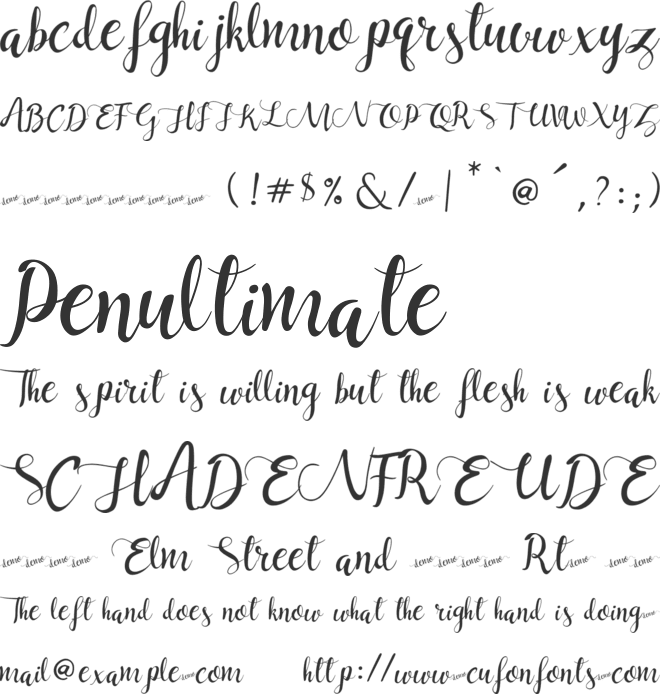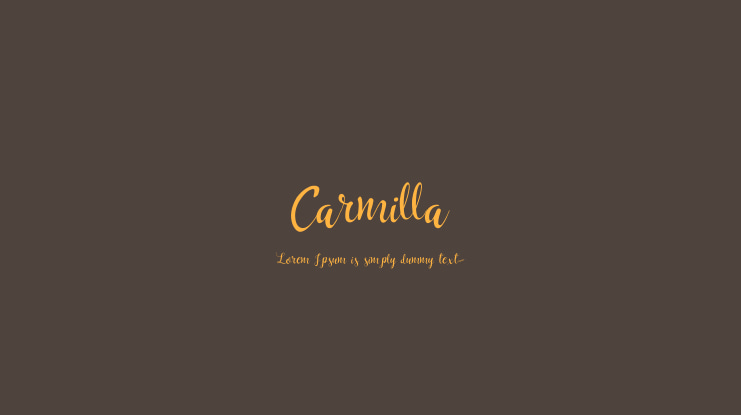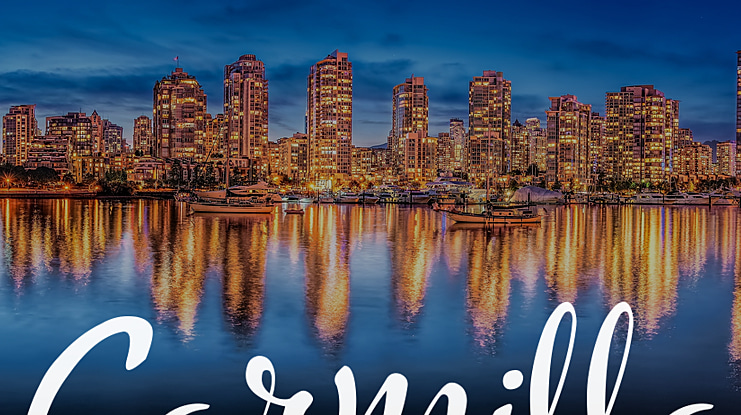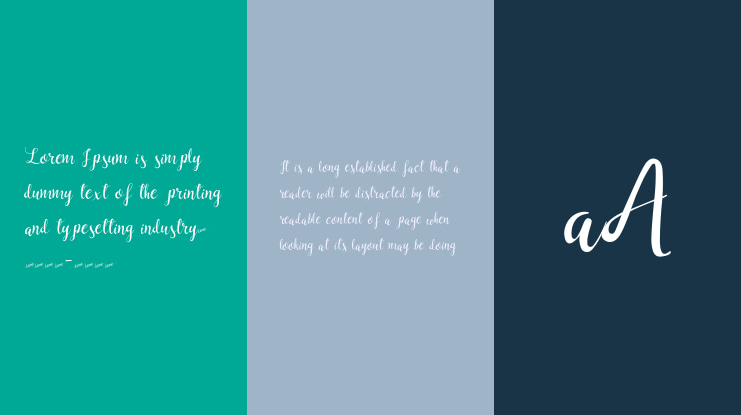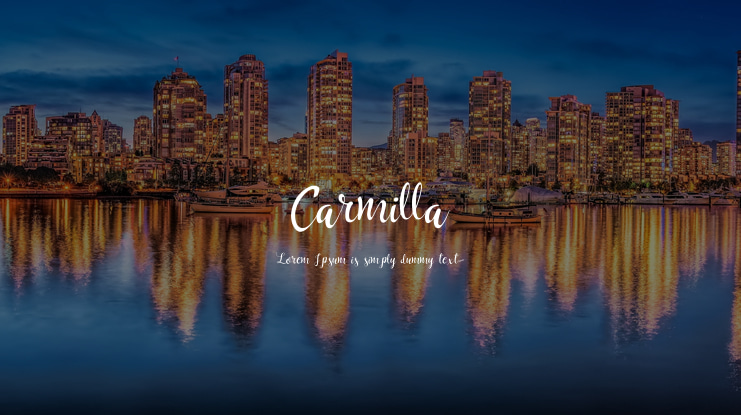
Carmilla Font
Carmilla contains standard characters, lowercase, uppercase, numbers, punctuation, ligatures. This font also comes with two sets of alternate lowercase characters with initial and end swashes.